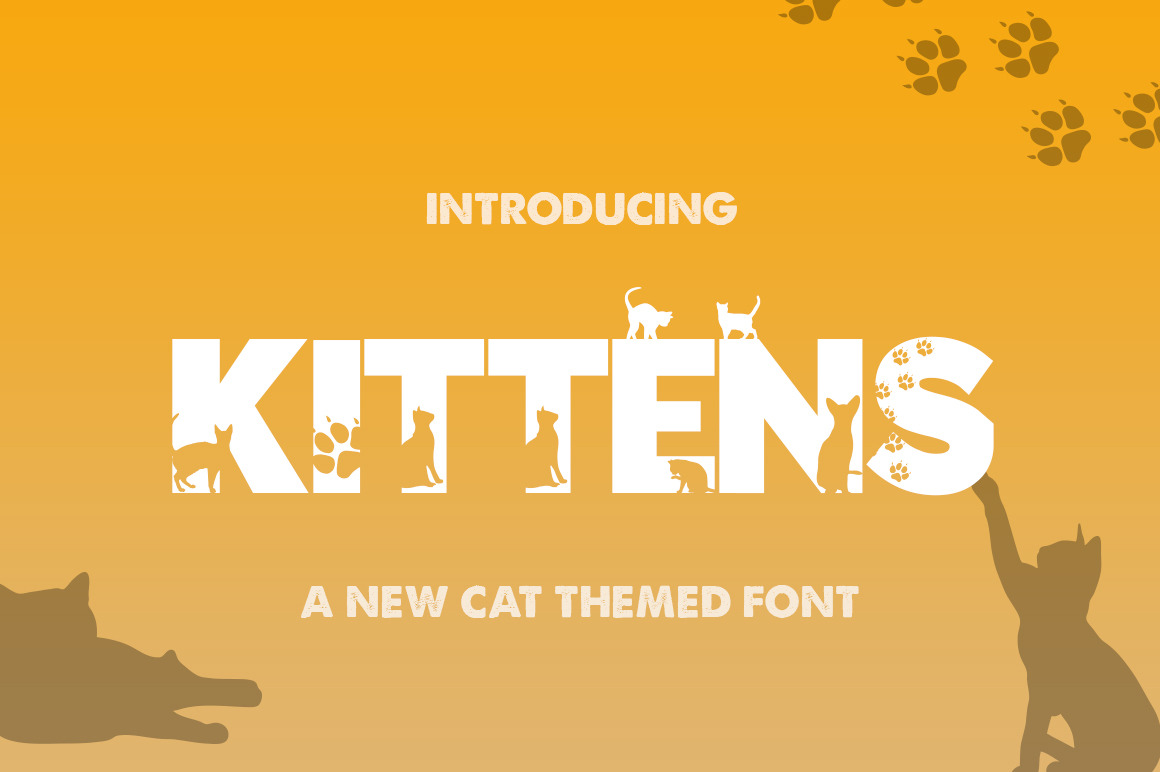
Kittens Silhouette Font
We are using this font on some cat themed t-shirt designs. We have had to modify the capital F as the black cat silhouette at the base of the F was making it look like an E, so the word LIFE was kinda reading LIEE. we reversed the silhouette out and placed it within the structure of the capital F and it looks fine now >^..^<